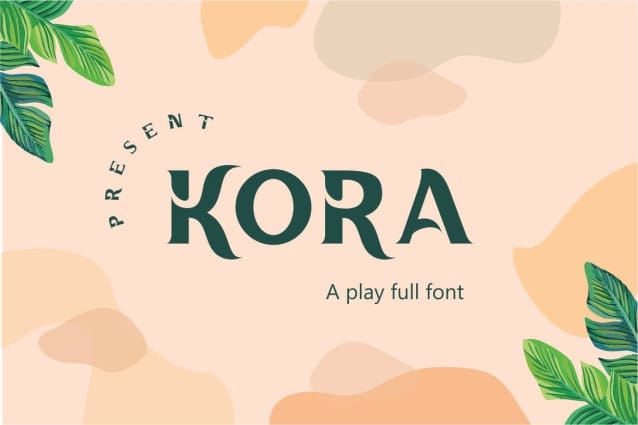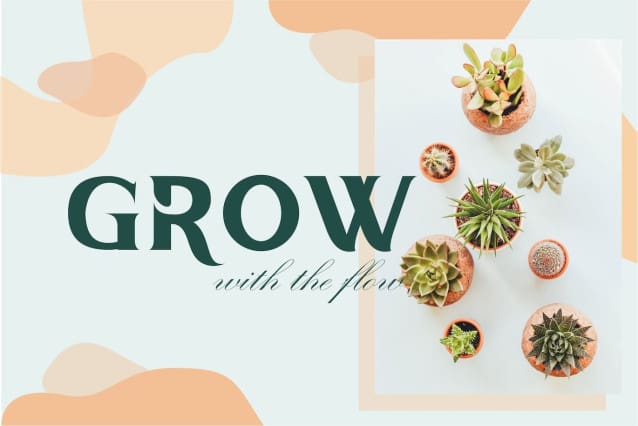
Kora Font
Kora Font is inspired by BristolCity, the only city in the UK to make the list of cities with lots of green space. Fonts with natural shades can be categorized as natural fonts. Kora Typeface is Inspired by Nature.
By giving a little volume to letter fields like Bubble Fonts. I would like to illustrate how this font is very useful for health products, natural tourist attractions and natural branding that the user’s business wants to convey, with a natural Fancy Fonts effect that can create an impression cool with every use.